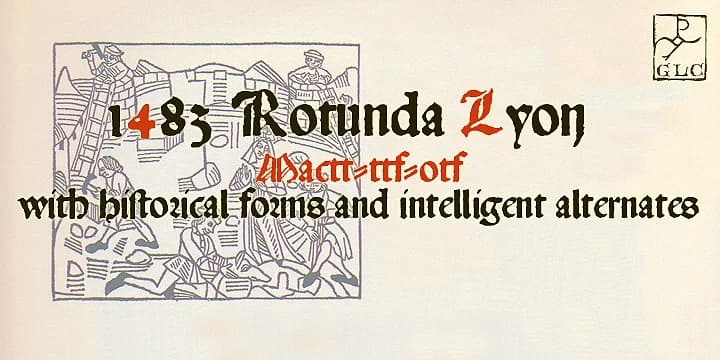
About 1483 Rotunda Lyon Font
The letterforms here draw from a venetian rotunda style that dominated 15th-century printing: dense vertical strokes, flowing connections between letters, and the kind of weight that reads almost like calligraphy hand-set on the page. 1483 Rotunda Lyon, designed by GLC Foundry, recreates this historical aesthetic while making it genuinely practical for contemporary use.
The font takes its name from a 1483 edition of the French "Eneide" printed in Lyon, and GLC Foundry has extended far beyond a simple historical replica. Rather than a simple period piece, it's been enriched with accented letters, authentic ligatures, and decorative forms that respect the blackletter tradition while supporting multiple languages and modern design workflows. That combination of historical integrity and practical functionality makes it suited to vintage book cover design, museum exhibition catalogs, certificate and diploma layouts, steampunk branding and packaging, or editorial spreads in arts and culture publications where period authenticity genuinely matters to the work.
The rotunda's natural density and formality read well when you're designing for gravitas without pretension. It works for designers handling projects that deliberately reference historical printing traditions, from independent press publications to luxury packaging for artisanal goods. If blackletter interests you but traditional textura feels too dense and severe, this version strikes a different balance. Get it on Creative Fabrica.
1483 Rotunda Lyon Font is a decorative font that shines as a display or heading face. Pair it with a clean sans-serif or serif font for body text β the contrast creates a clear hierarchy while the two styles stay balanced and easy to read.